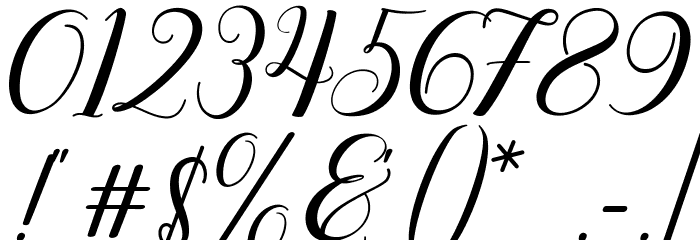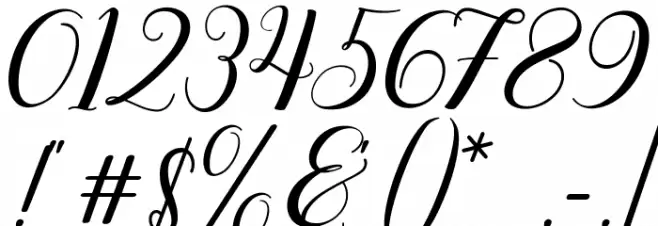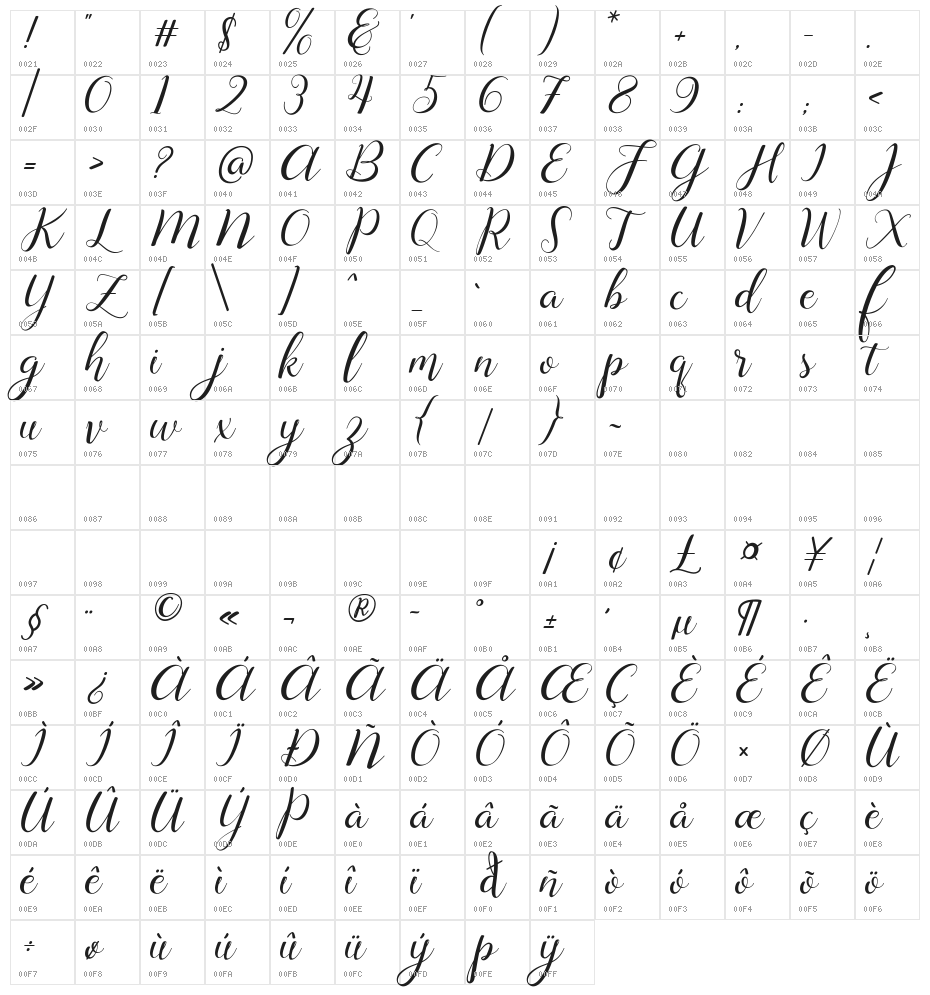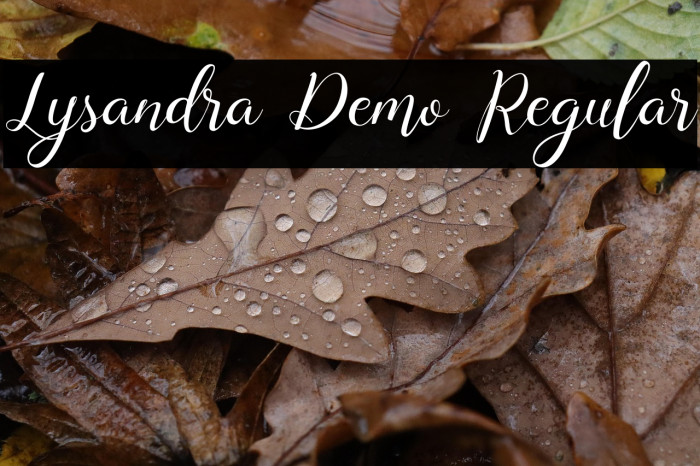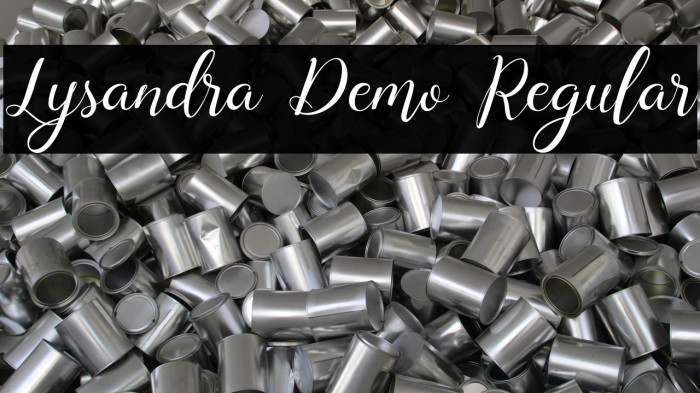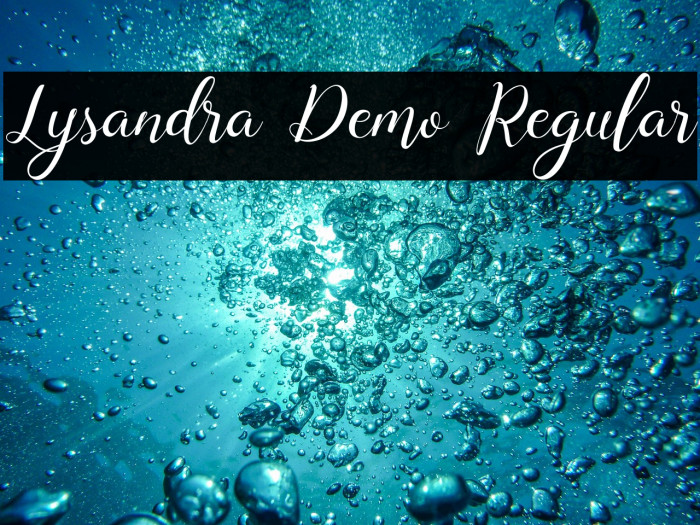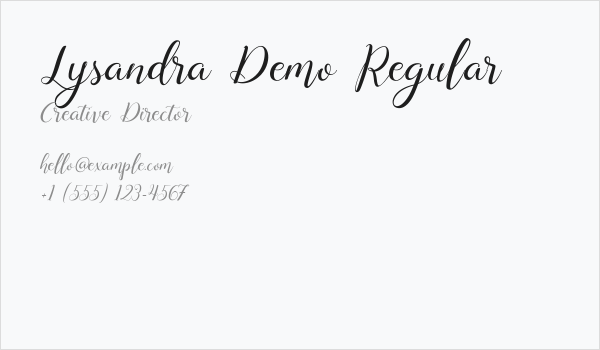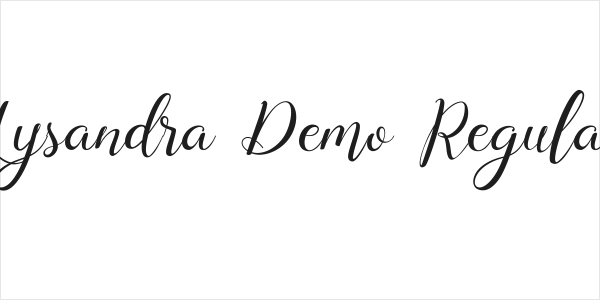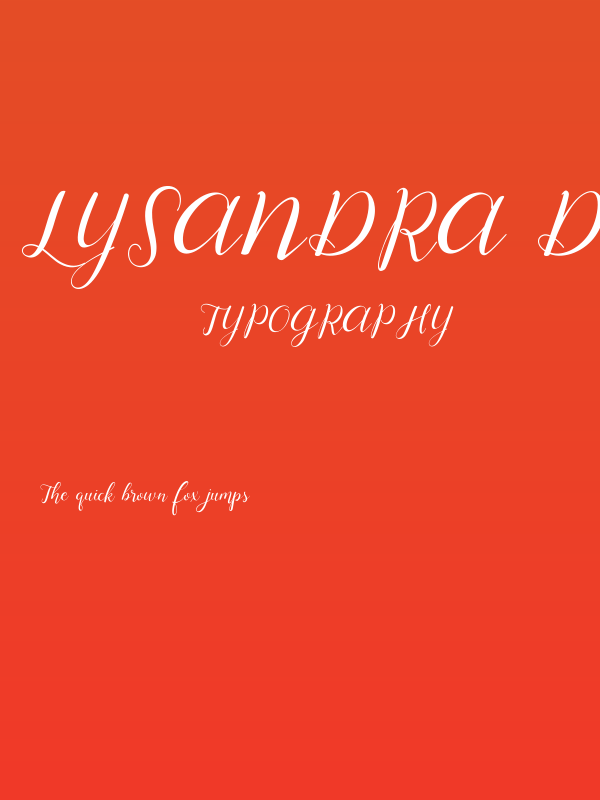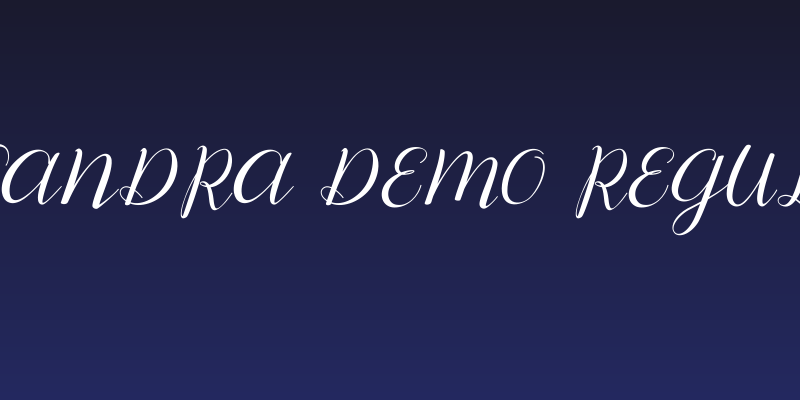
Lysandra Demo Regular Font
Lysandra Demo Regular Description
This font exudes elegance and sophistication with its flowing, cursive style. The characters are intricately designed with smooth, sweeping curves and delicate flourishes, giving it a handwritten appearance. The uppercase letters are particularly ornate, featuring elongated strokes and subtle loops that add a touch of grace. The lowercase letters maintain a consistent style, with gentle connections between characters that enhance readability. The numerals are equally stylish, complementing the overall aesthetic. Special characters are thoughtfully integrated, maintaining the font's cohesive look. This font is perfect for projects that require a personal, elegant touch.
| Proposed Projects | Ideal for wedding invitations, greeting cards, branding, and elegant logos. |